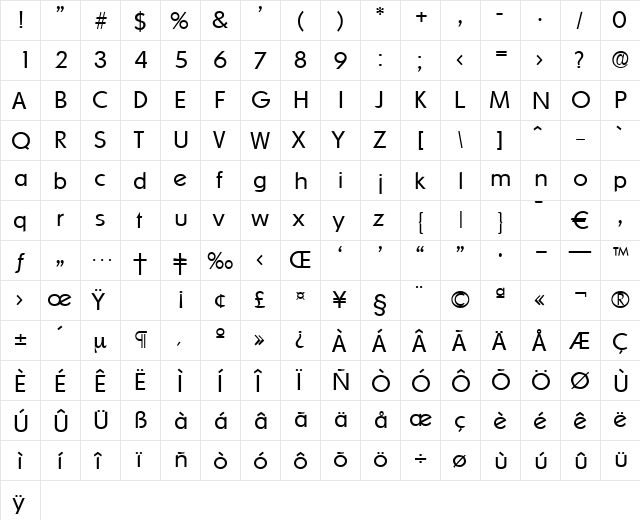
Ornitons-Light Regular
Design Context for Ornitons-Light Typeface
Ornitons-Light takes a measured approach to typography — its balanced proportions and neutral character make it a reliable workhorse for both digital and print work. Its slender proportions lend an understated elegance to any composition.
Pro Tip: Use Ornitons-Light in both headline and body roles to test its range before committing to a single application.